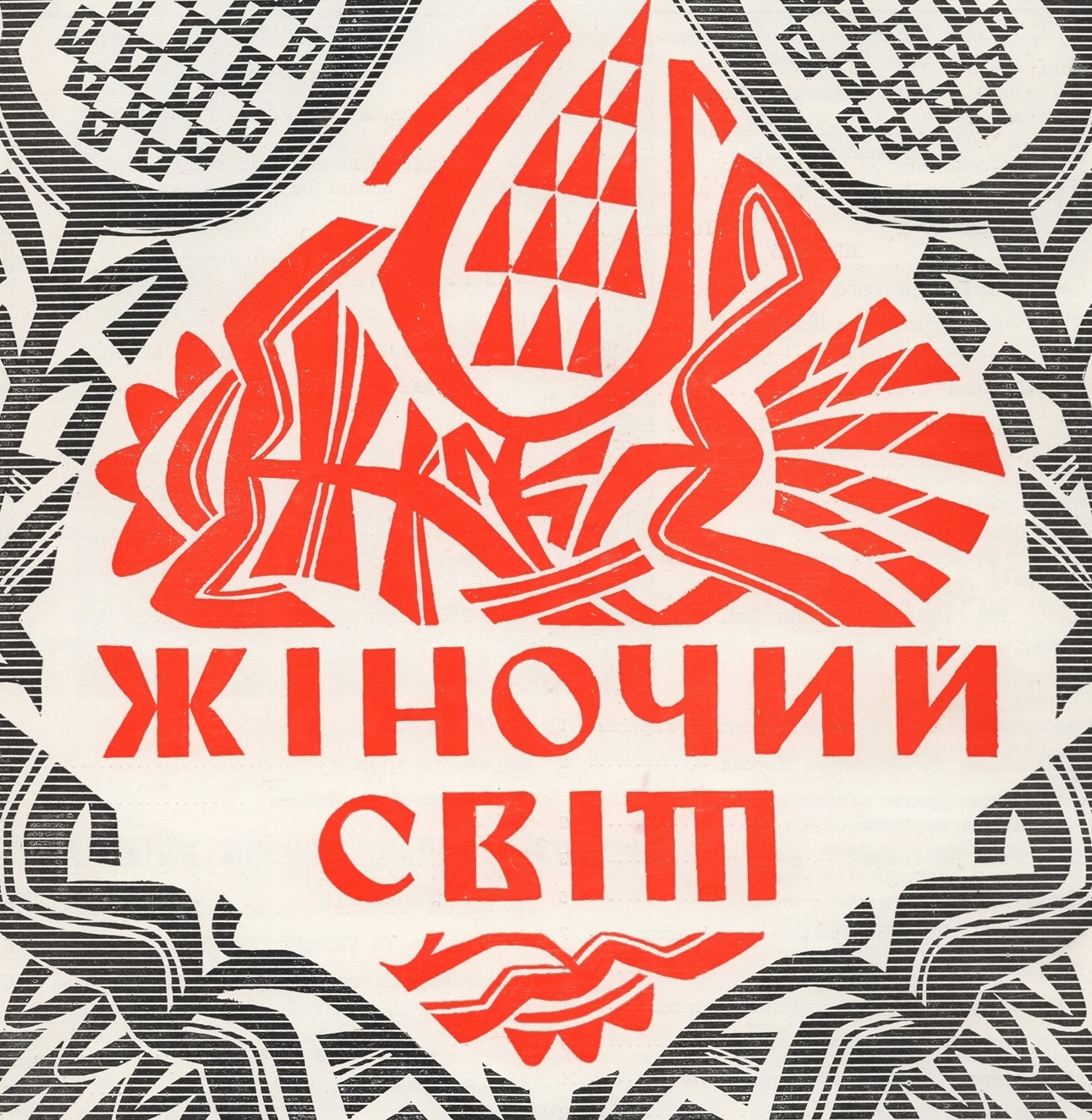
We have a strong type tradition in Ukraine. Over the past few years, Ukrainian type design has been growing rapidly. I believe that now, during the war, when Russian invaders are destroying not only our nation but also our cultural heritage, it is even more important to highlight Ukraine’s graphic and type tradition.
I enjoy creating letters that are inspired by Ukrainian architecture (for example, my Misto font), works by Ukrainian graphic artists of the last century and vernacular typography. The lettering I did for Alphabettes was inspired by the 1954 book cover created by Mykhailo Dmytrenko. I like to take historical samples as a basis and rethink them more or less in a modern context. In this way, you can build a bridge between the past and the present. Visual communication becomes stronger and makes sense.
I aim to introduce Ukraine into the arena of type. The boundaries are non-existent and limitless. I can advise you to get acquainted with the works of other prominent Ukrainian graphic artists, whose letters I like the most: Jacques Gnizdovsky, George Narbut, Robert Lisovsky, Vasyl Yermilov, Nil Khasevych, Vasyl Krychevsky, Myron Levitsky.
Many of these graphic artists were affected by the war. Some were forced to leave Ukraine and go abroad. Some remained and were repressed by the Soviet authorities for their pro-Ukrainian views. But they all continued to work, preserve and create the Ukrainian heritage.
As graphic artist Neil Hasevich said, “As long as there is at least one drop of my blood left, I will fight the enemies of the Ukrainian nation. I can’t fight them with weapons, but I fight with a cutter and a chisel.” He did not have one leg, but he had an indomitable spirit.
We believe in our victory. Glory to Ukraine!